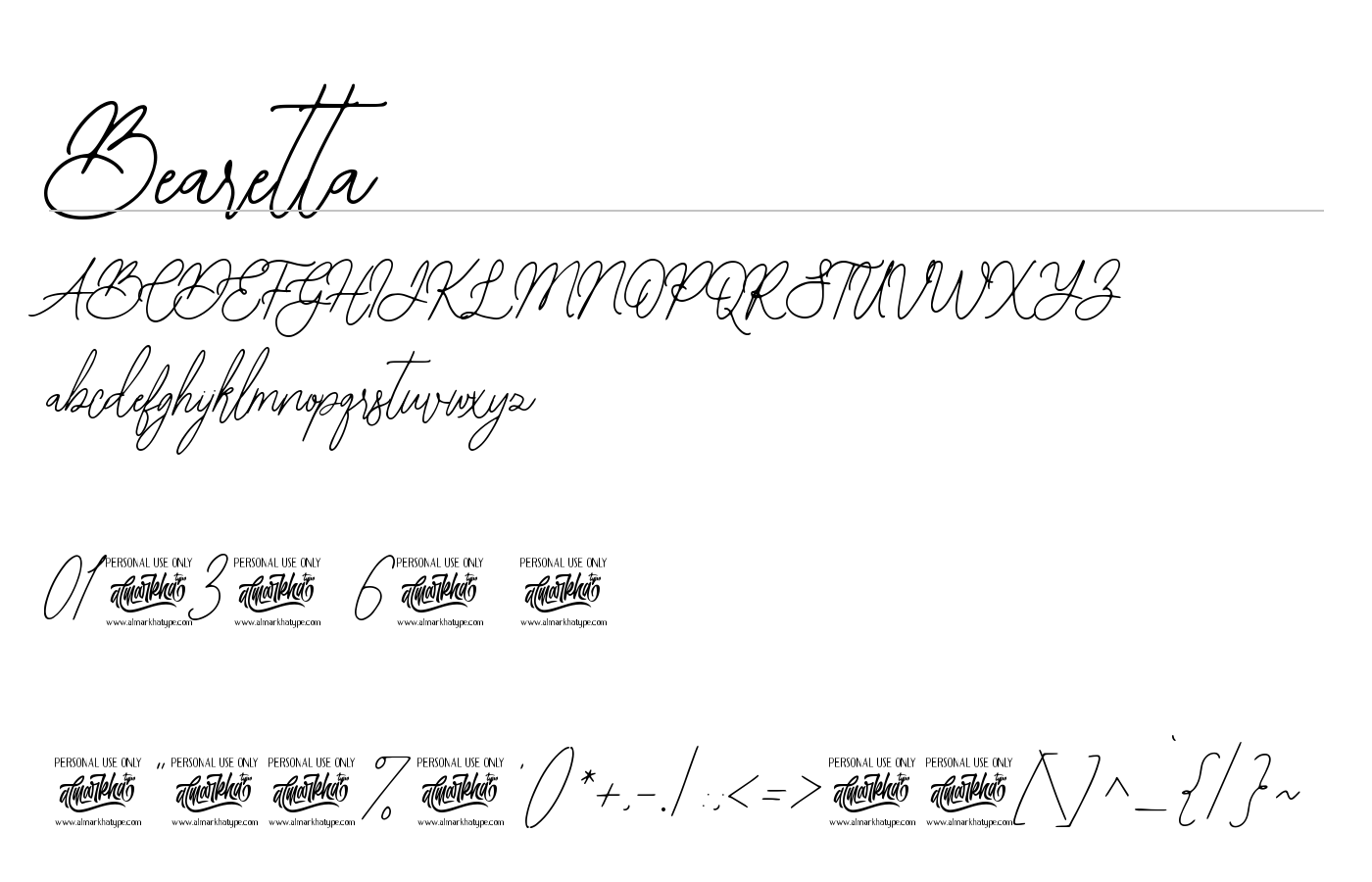
Bearetta is an elegant, delicate script font with a refined, handwritten style that feels both sophisticated and personal. Its thin, flowing strokes and tall, narrow letterforms make it perfect for luxury branding, wedding invitations, and elegant headlines where a graceful, stylish touch is desired. This font works best in designs that need a refined, artistic flair without sacrificing readability.
Bearetta Font
About Bearetta Font
| Font family | Bearetta Font |
| Designer | Almarkhatype Studio - Abdul Malik -Ghazi |